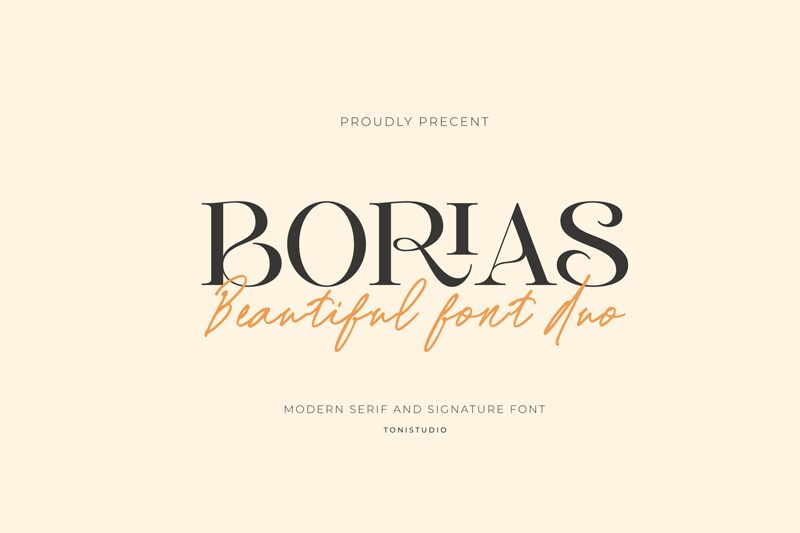
BORIAS
Borias font by ToniStudio is a free serif font that exudes elegance and sophistication. Featuring high contrast, refined curves, and ornate details, this vintage-inspired typeface captivates with its formal demeanor. Borias channels a delicate blend of tradition and modern flair in an instantly recognizable design.
Use it to complement the typography for invitations, magazines, logos, posters, book covers, letterheads, brochures or menus. Decorate website headers or applications with its exquisite presence that will surely enhance both your printed products and your digital platforms seamlessly.